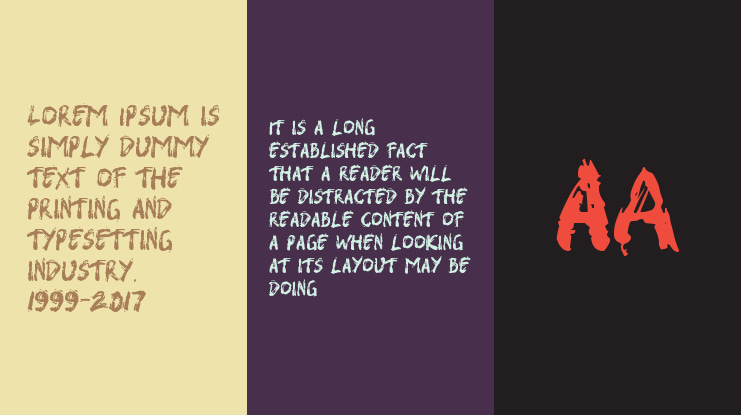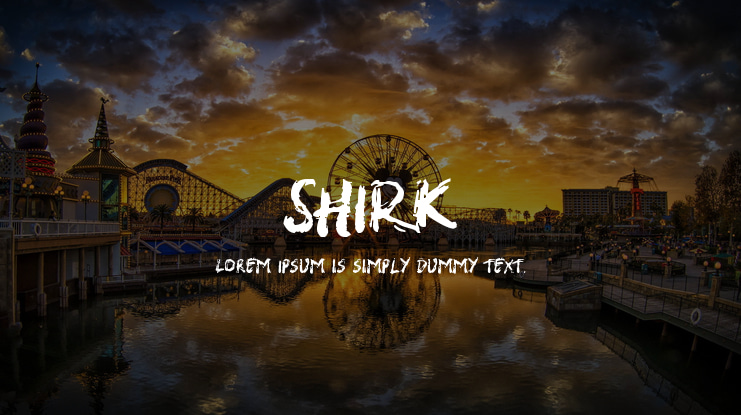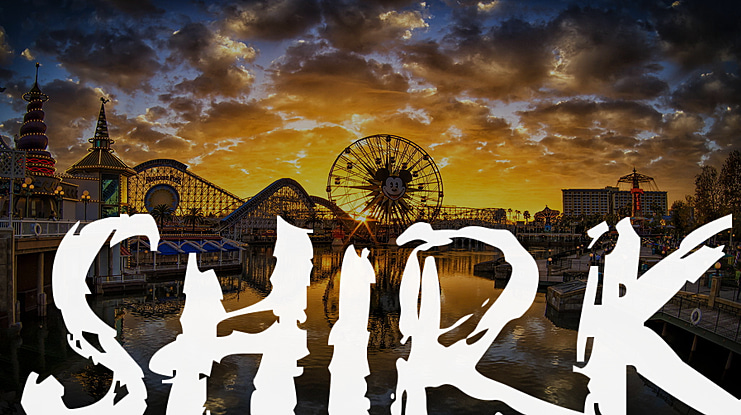
SHIRK Font
Introducing SHIRK - SVG Font a brush type font with a typical texture brush, looks as real as if you were using a brush,You can see traditional vector letters in the font preview window at the bottom of this post. Still has a lot of terrible details.